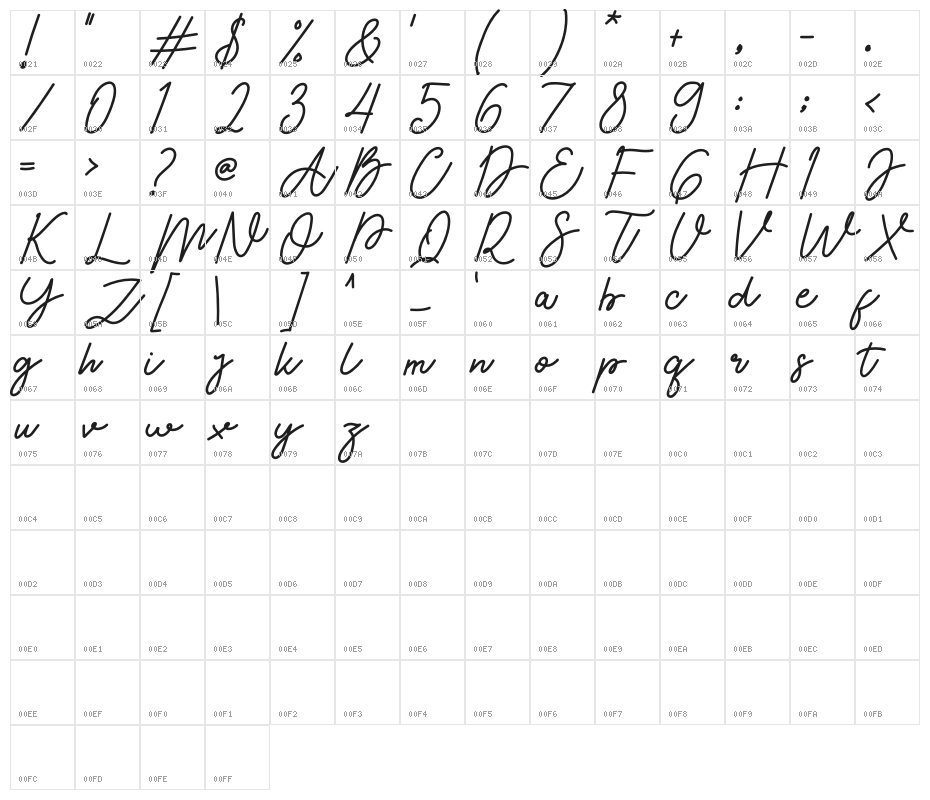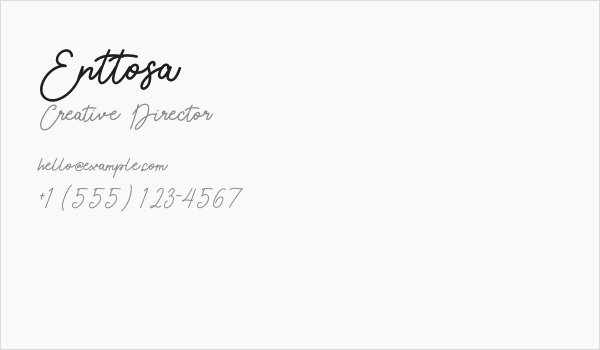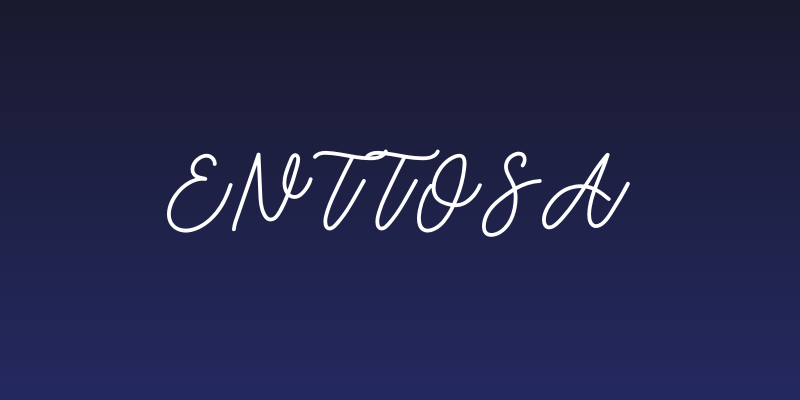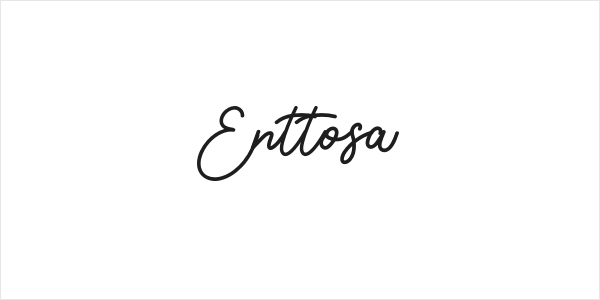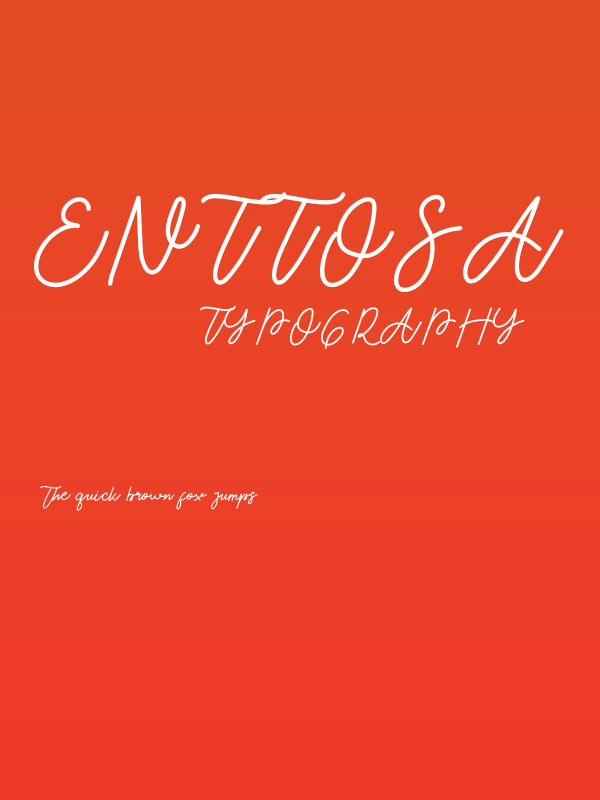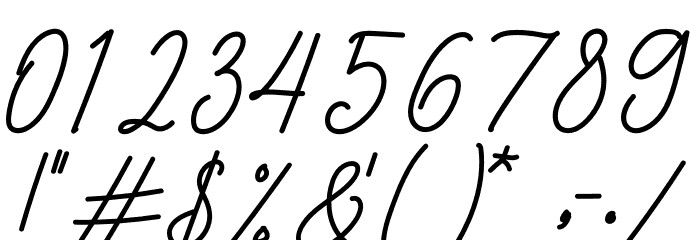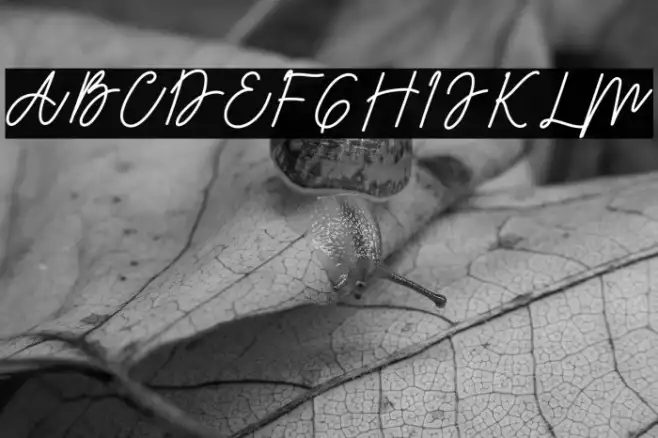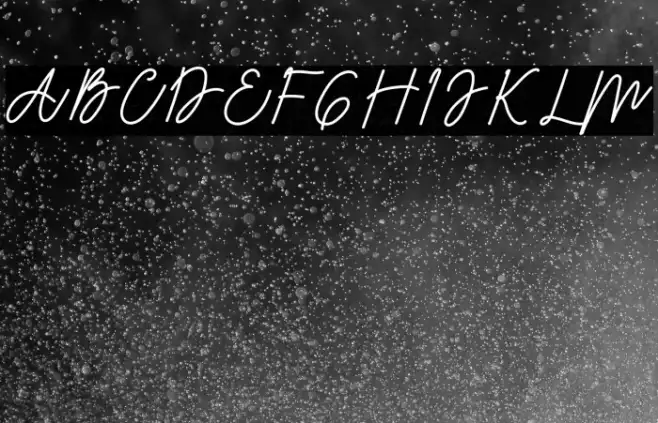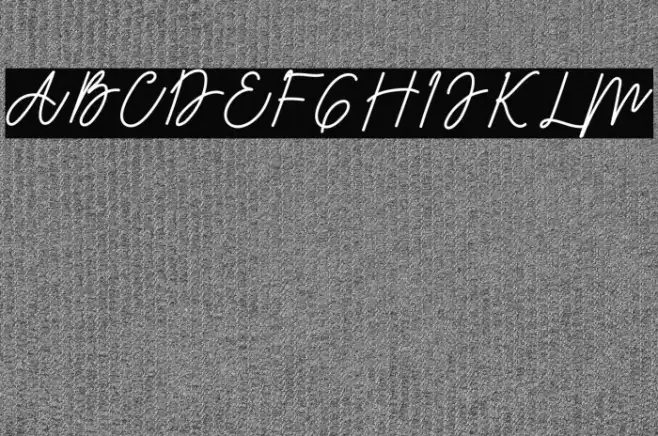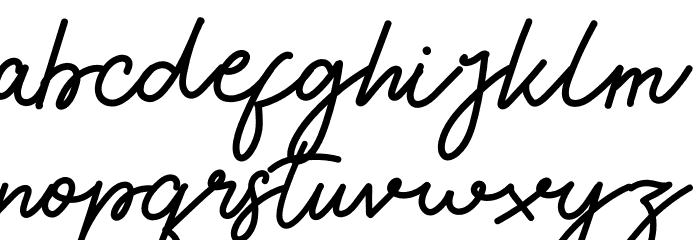
Enttosa Font
Enttosa Description
This font features a dynamic and fluid script style, characterized by its elegant and flowing strokes. The uppercase letters exhibit a graceful and slightly slanted form, while the lowercase letters maintain a consistent and harmonious flow. The numerals are clear and legible, complementing the overall cursive aesthetic. Special characters are seamlessly integrated, maintaining the font's cohesive and stylish appearance. The font's design is both sophisticated and approachable, making it suitable for a variety of creative applications.
| Proposed Projects | Ideal for wedding invitations, greeting cards, branding projects, and elegant logo designs. |